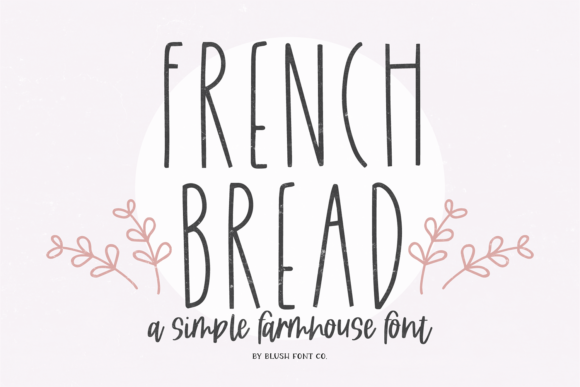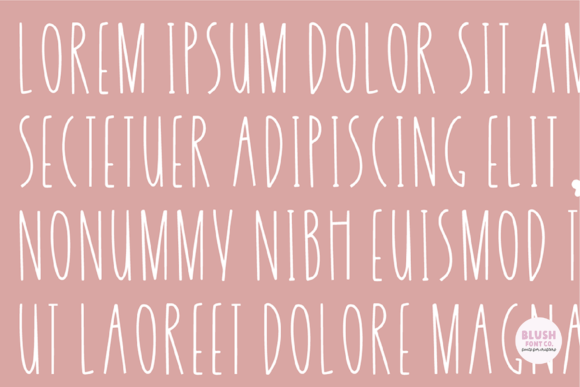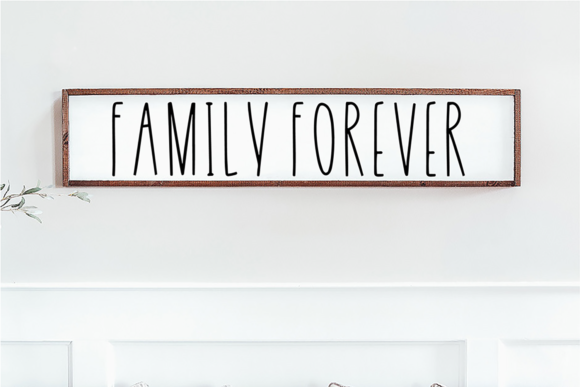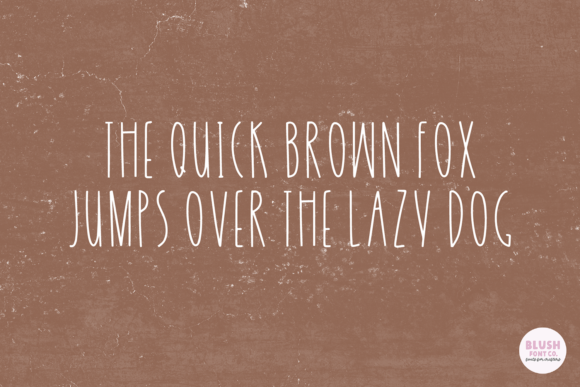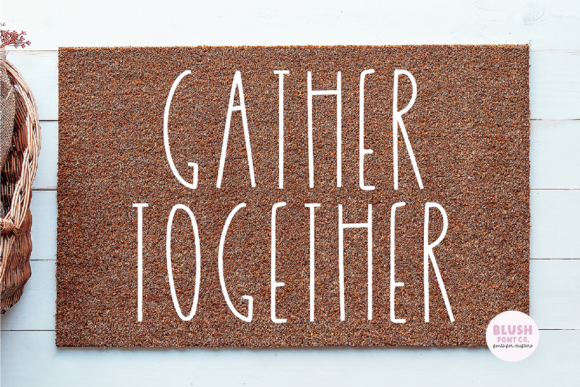
French Bread Font
About French Bread Font
French Bread is a cute and simple lettered handwritten font that can be used for all chalkboard quotes or teaching material! Its authentic look will add a personal and realistic feel to your designs.